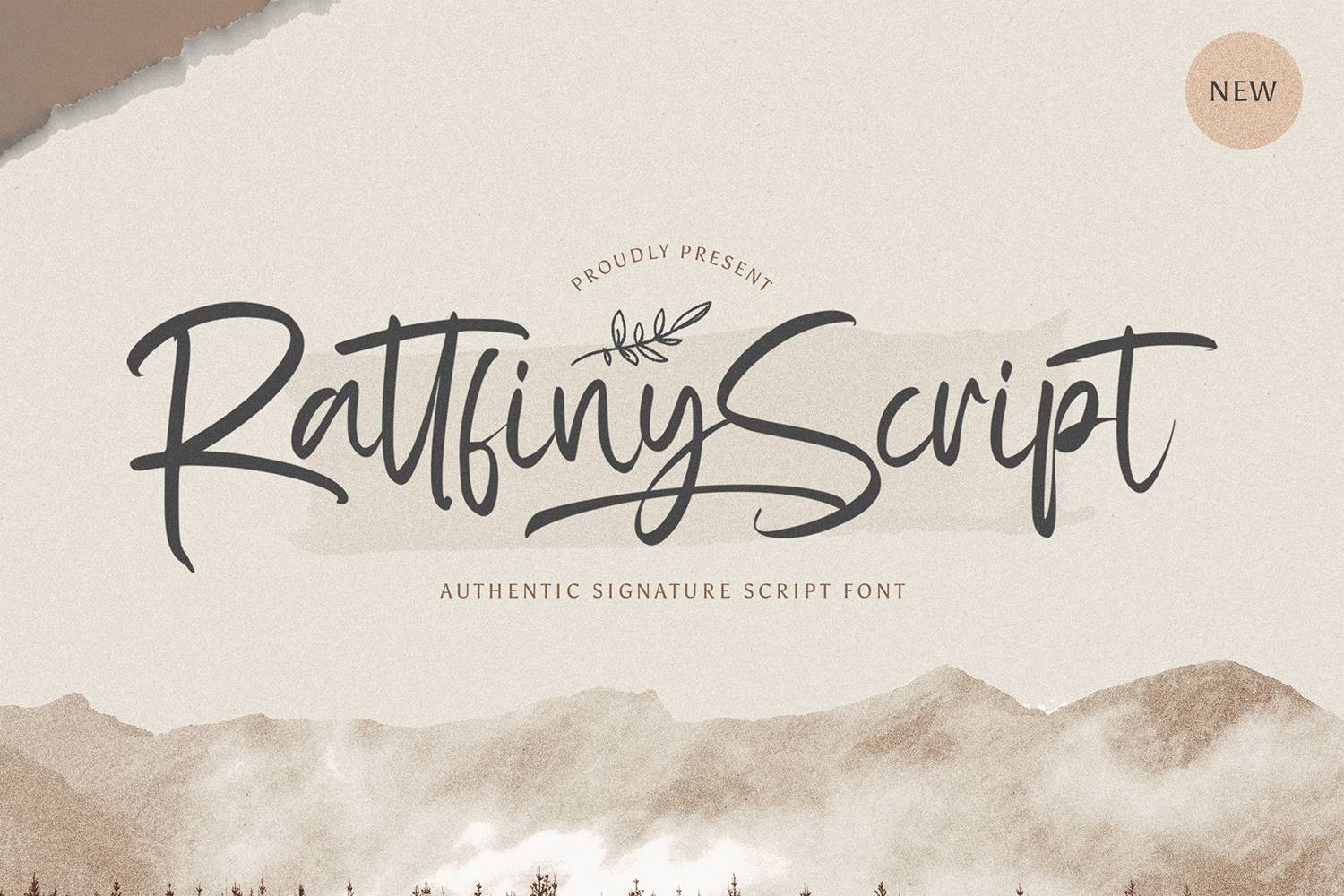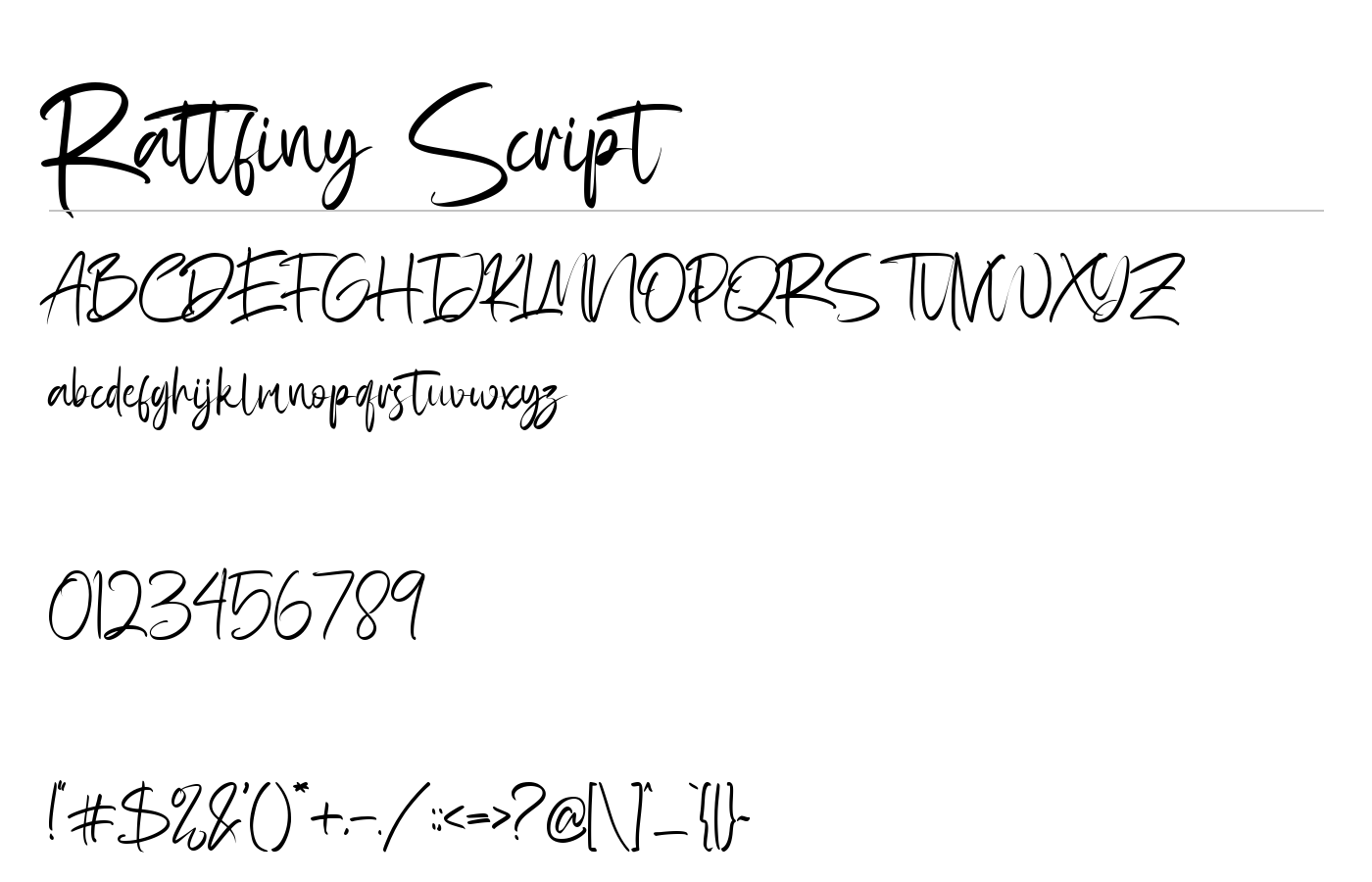
Rattfiny Script is a playful and modern handwritten font characterized by its tall, slender letterforms and a lively, casual flow. Its varying stroke widths and spontaneous curves give it a personal, energetic feel that works beautifully for creative projects, branding, and invitations where a friendly and approachable look is desired. This font shines in headlines and logos, adding a unique touch without sacrificing readability.
Rattfiny Script Font
About Rattfiny Script Font